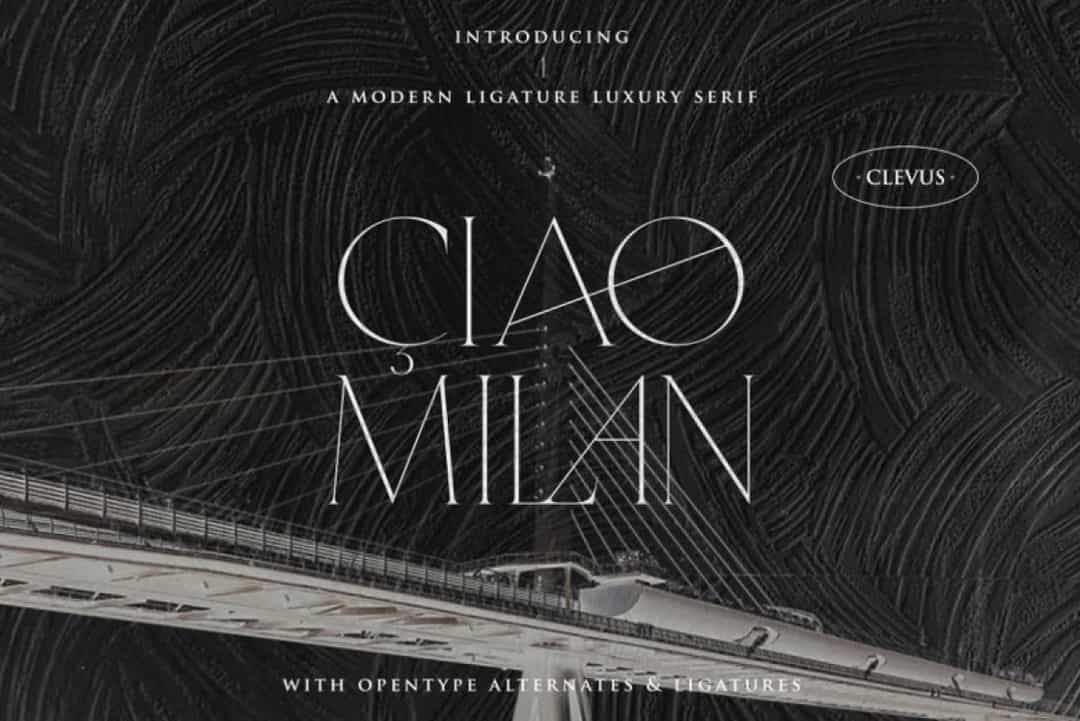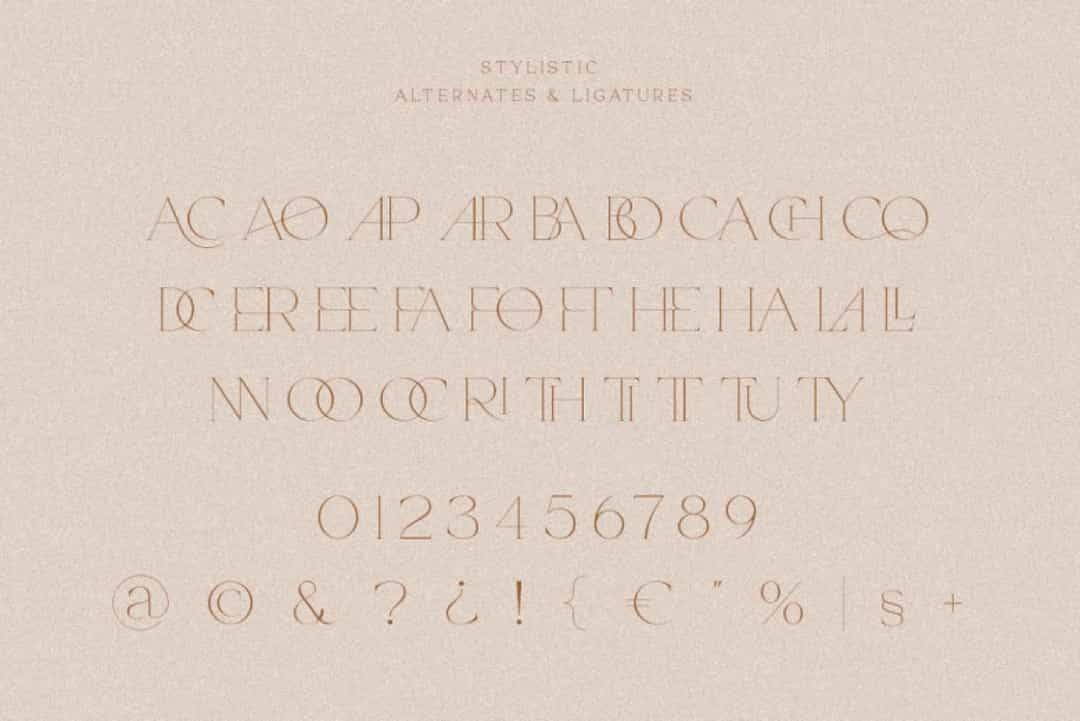
CiaoMilan, designed by ClevUs and featuring trendy alternate and ligature designs, is an elegant yet contemporary serif typeface perfect for modern projects including logo design, movie, book title design, clothing brand name designs, magazines, lettering designs as well as quotes – among many others.